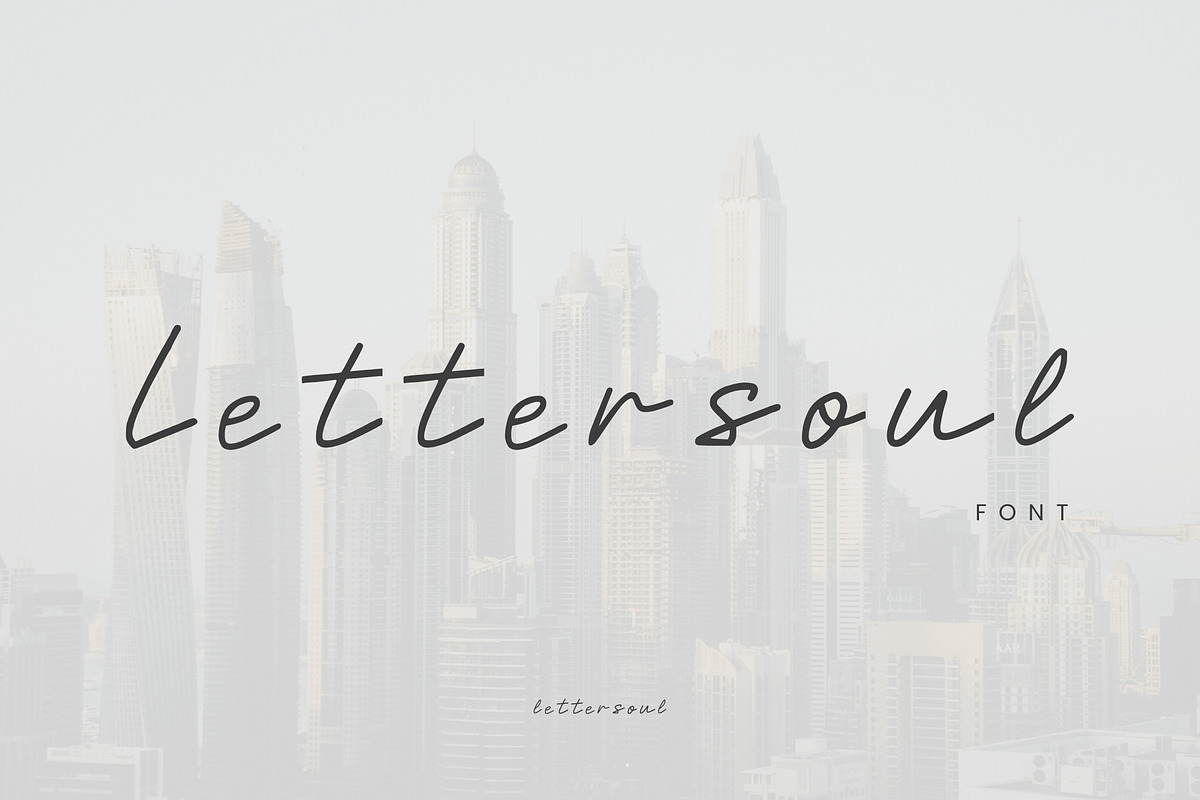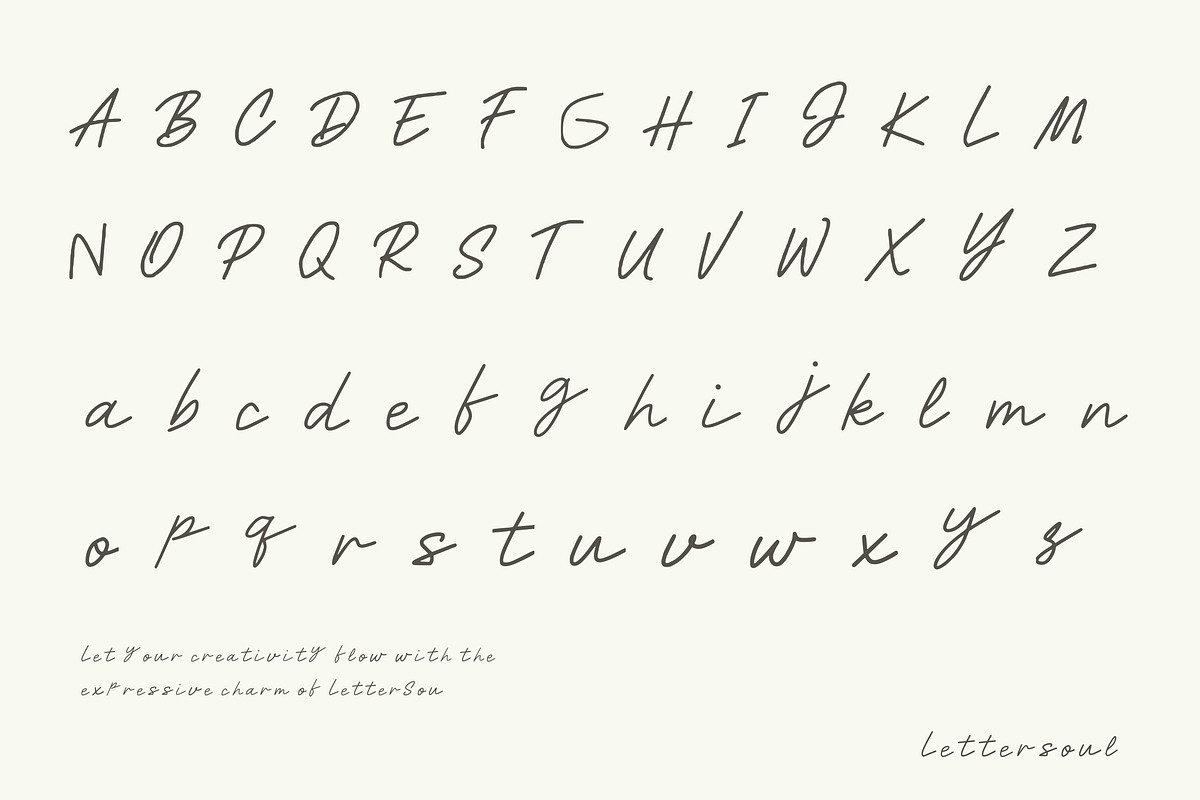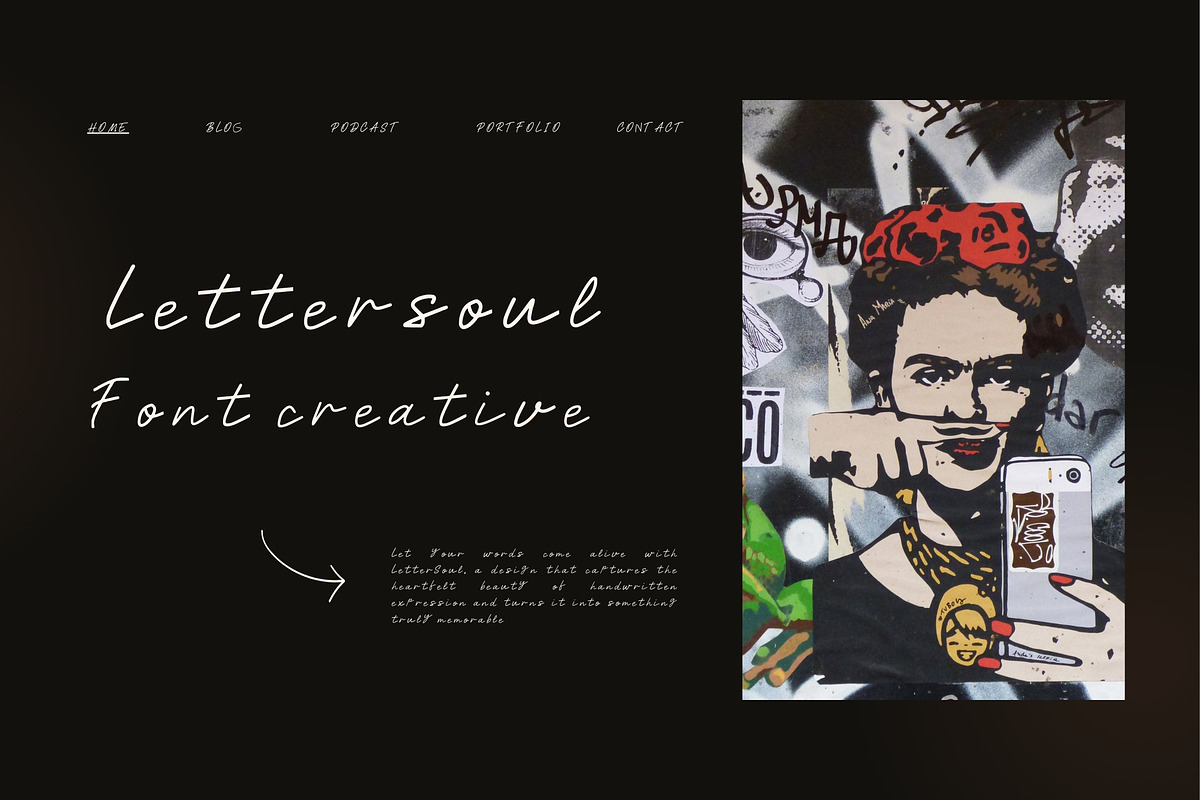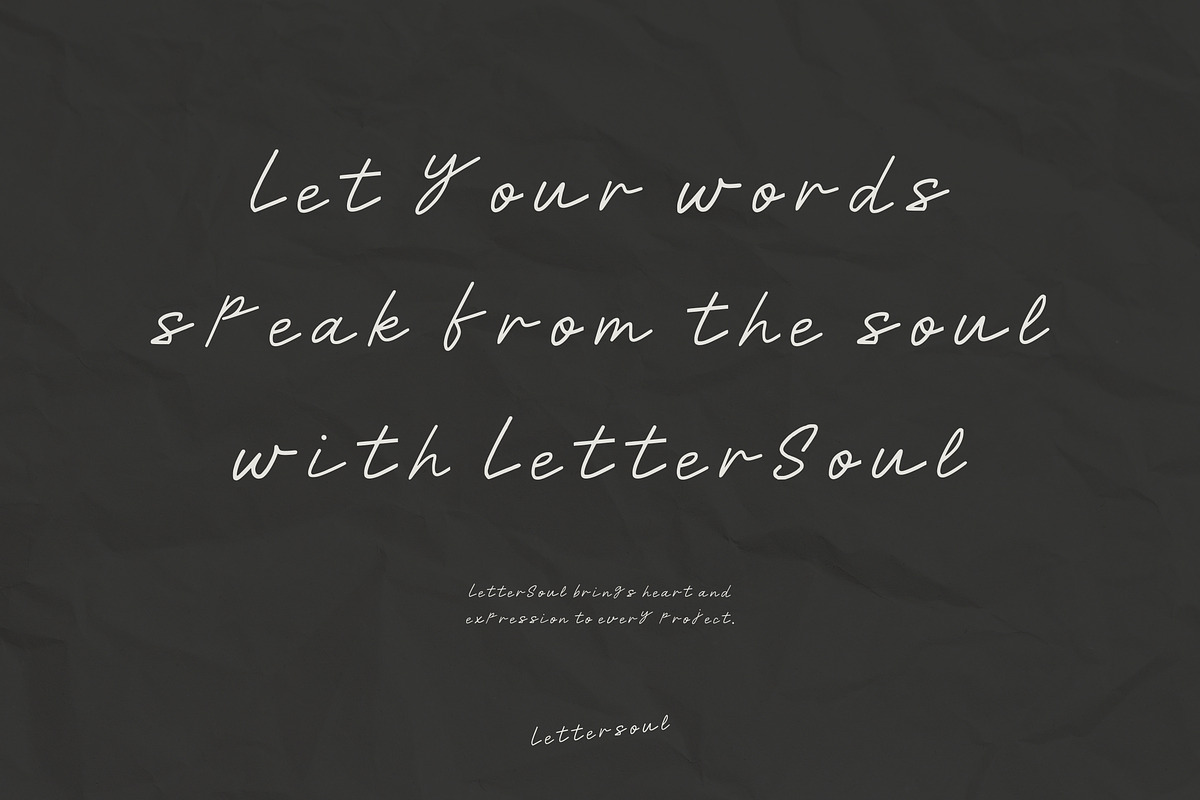
Lettersoul – Handcrafted Style
Lettersoul is a beautifully crafted font designed to bring a heartfelt, human feel to your creative projects. With its smooth, flowing strokes and natural charm, this font adds warmth and authenticity to everything from branding and social media posts to wedding invites and product packaging. Inspired by personal expression and artistic flair, Lettersoul helps your words speak louder with style and personality.